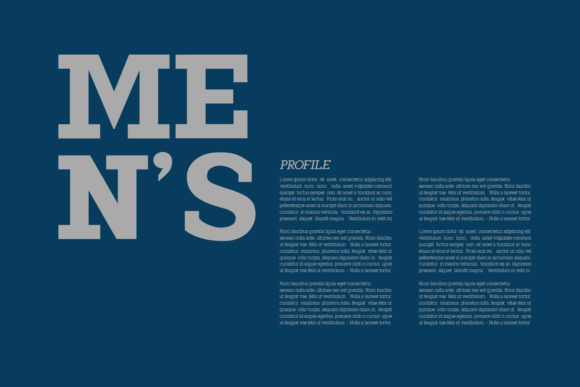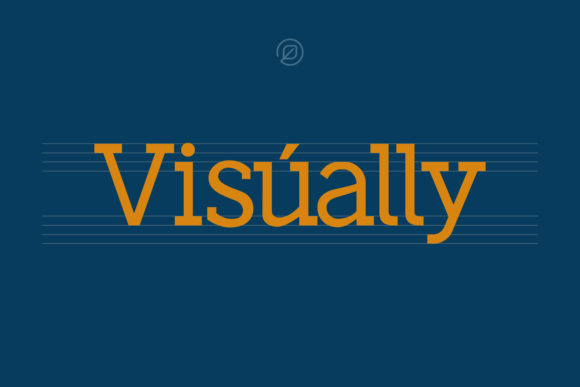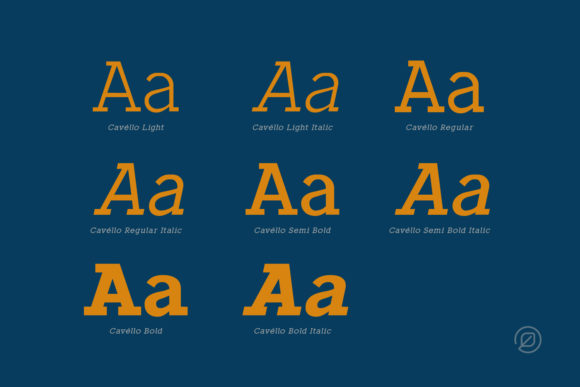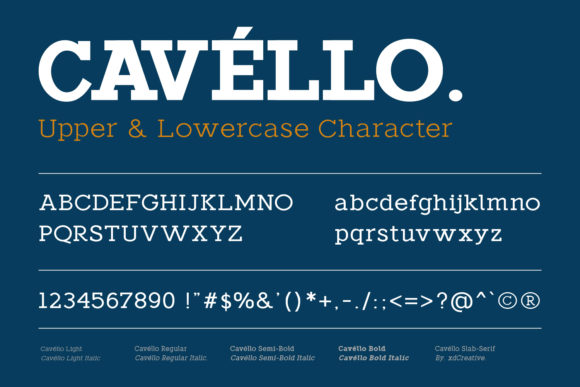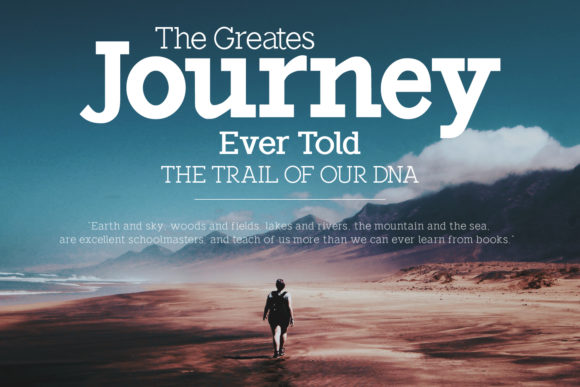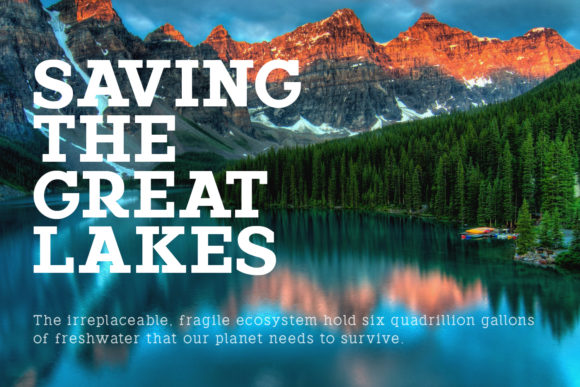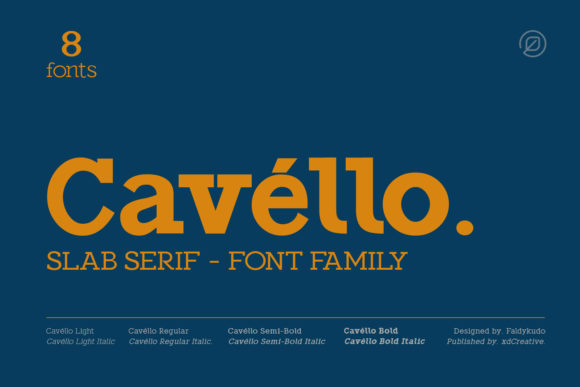
Introducing Cavéllo Font: A Bold and Clean Slab Serif for Creative Projects
Are you on the lookout for a font that can elevate your design projects with its unique and stylish appeal? Look no further than Cavéllo, a bold and clean slab serif font designed to inspire a wide range of creative ideas. Whether you’re working on letterheads, titles, stationery, logos, t-shirts, web designs, or print materials, Cavéllo is the perfect choice for designers and crafters seeking a fresh and original look.
What Makes Cavéllo Stand Out?
Cavéllo’s distinctiveness lies in its well-crafted design, featuring a slab serif style that exudes both boldness and cleanliness. This font family is not just a single typeface but a comprehensive collection that includes three basic forms: italics, obliques, and uprights. Each of these forms is available in four different weights: light, regular, semi-bold, and bold. This versatility makes Cavéllo an incredibly useful tool for a variety of design applications.
Cavéllo Font Family: A Range of Options
The Cavéllo font family is designed to cater to diverse design needs. It includes:
This extensive range allows designers to choose the perfect weight and style to match their project’s tone and aesthetic, ensuring consistency and harmony across their designs.
Ideal for Various Design Projects
Cavéllo’s flexibility and stylish appearance make it suitable for a multitude of design projects. Here are some of the areas where Cavéllo truly shines:
- Logos: Create memorable and impactful logos with Cavéllo’s bold and clean lines.
- T-shirts: Design eye-catching apparel with a font that’s both stylish and legible.
- Web Design: Enhance your website’s typography with a font that’s optimized for digital use.
- Print Materials: From brochures to posters, Cavéllo adds a professional touch to any print project.
- Motion Graphics: Bring your animations and videos to life with Cavéllo’s dynamic and engaging style.
- Headings: Use Cavéllo to create compelling headings that capture attention and add structure to your content.
Why Choose Cavéllo?
There are several reasons why Cavéllo should be your go-to font for your next project:
- Unique Style: Cavéllo offers a fresh and original look that sets it apart from more traditional fonts.
- Versatility: With multiple weights and styles, Cavéllo can be adapted to a wide range of design applications.
- Legibility: Despite its bold appearance, Cavéllo remains highly legible, making it suitable for both headings and body text.
Cavéllo is more than just a font; it’s a design tool that offers endless possibilities for creativity and expression. Whether you’re a professional designer or a DIY enthusiast, Cavéllo provides the perfect combination of style, versatility, and functionality to bring your ideas to life. With its bold and clean slab serif design, extensive range of weights and styles, and suitability for a variety of projects, Cavéllo is set to become a staple in your design arsenal.